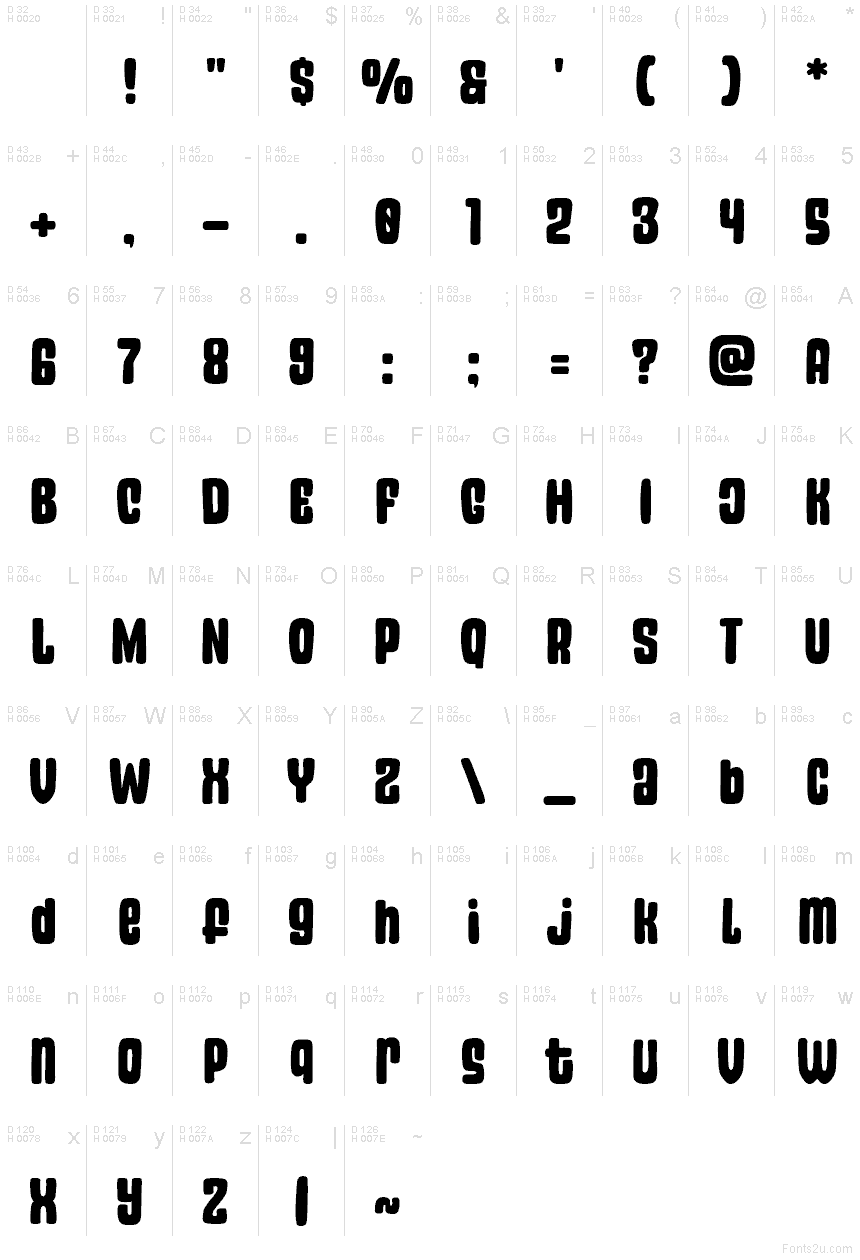
Display Plan
Display Plan font by Khurasan is a bold and condensed display font made for impactful modern applications in branding and advertising. It has vintage appeal, rounded cartoon letters, and a retro vibe. The limited character set includes uppercase Latin alphabets alongside numbers, glyphs, and foreign language characters.
This free cartoon display font has its ideal use in headings inside covers of comic books or magazine articles. Further possible uses include signage for cafes, envelopes of invitations to casual events such as birthday parties, posters, logos with illustrations at shops for kids as well as food trucks. It may even suit minimal packaging or label designs where the font is applied to the stickers promoting candy collections meant for children’s private events such as birthdays.